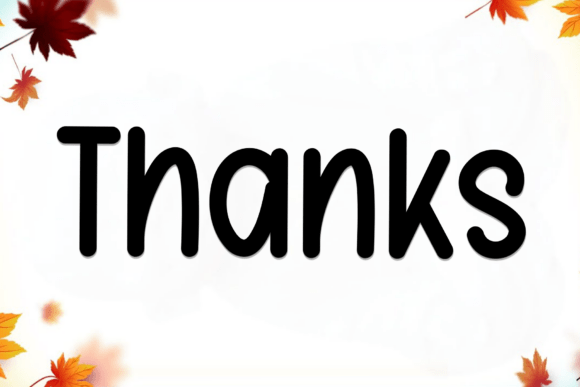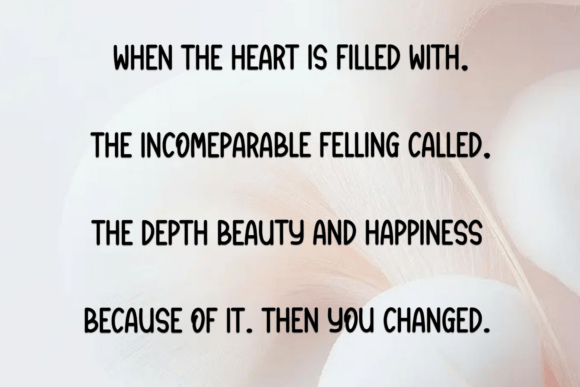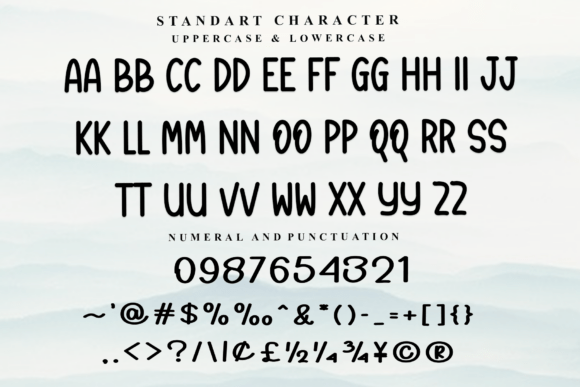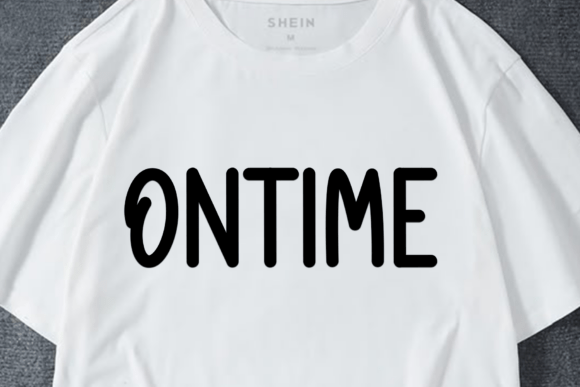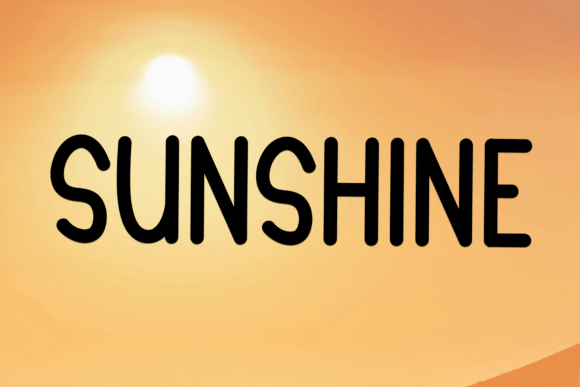
Babyboy Font: Elevate Your Designs with a Soft, Unique Touch
In the world of typography, fonts play a crucial role in making or breaking a design. A well-chosen font can elevate your creative project, making it stand out from the crowd. If you’re a designer, crafter, or artist looking for a font that exudes a soft, unique touch, look no further than the Babyboy Font. This beautiful and eye-catching font is designed to add a special character to your designs, making it perfect for a wide range of creative projects.
What Makes Babyboy Font Special?
Babyboy Font is a distinctive and versatile font that boasts a unique touch. Its soft strokes and carefully crafted characters give it a special charm, making it an excellent choice for designers and crafters. The font’s natural style is perfect for creating visually appealing designs that cater to various artistic and creative fields. Whether you’re working on a logo, branding project, or craft, Babyboy Font is sure to make your designs shine.
Key Features of Babyboy Font
• Unique and Soft Strokes: Babyboy Font features distinctive strokes that give it a special character, making it stand out from other fonts.
• Versatile and Meaningful: The font’s carefully crafted characters make it perfect for a wide range of design projects, from logos and branding to crafts and creative works.
• Wide Range of Characters: The font features a wide range of characters, ensuring that you have the perfect symbol or glyph to complement your design.
Babyboy Font is an excellent choice for designers and crafters working on various projects. Its soft, unique touch makes it perfect for:
• Logo Design: Create stunning logos that capture the essence of your brand with Babyboy Font.
• Branding Projects: Use Babyboy Font to create a consistent visual identity across your branding materials.
• Crafts and Creative Works: Add a personal touch to your crafts and creative projects with the font’s unique and soft strokes.
• Enhanced Visual Appeal: The font’s soft, unique touch will add a new level of visual appeal to your designs.
In conclusion, Babyboy Font is an exceptional choice for designers and crafters looking for a soft, unique touch in their designs. Its distinctive strokes, versatility, and compatibility with various applications make it an excellent addition to any design workflow. Whether you’re working on a logo, branding project, or craft, Babyboy Font is sure to elevate your designs and make them appealing to a wide range of audiences. So, why wait? Download Babyboy Font today and take your designs to the next level!